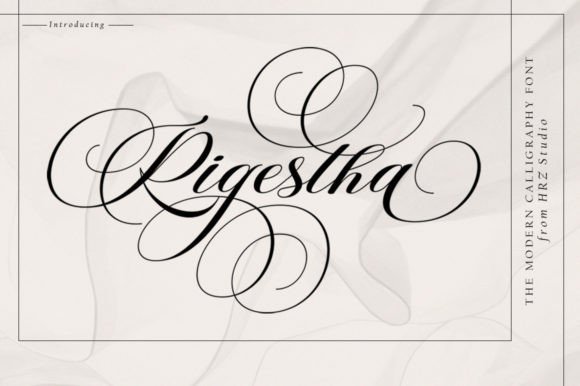
Bold and Beautiful: Introducing Rigestha, the Script Font That Will Transform Your Designs.
Dive into the world of enchanting typography with Rigestha, a calligraphy script font that spells elegance and sophistication. Inspired by the timeless beauty of copperplate script, Rigestha brings a modern twist to classic charm. Each letter dances across the page with smooth, clean lines, exuding a captivating femininity and sensuality. Its effortless readability, enhanced by intricate letter connections, makes it a joy to behold.
Rigestha Font: Where Art Meets Functionality.
Unleash your creativity with Rigestha's versatility. Whether you're crafting elegant invitations, designing captivating logos, or adding a touch of luxury to your fashion and beauty projects, Rigestha seamlessly adapts to your vision. Its timeless style shines in formal settings, adding a touch of sophistication to menus, labels, and stationery. Embrace the allure of Rigestha and watch your designs blossom.
A Symphony of Styles: Rigestha's Endless Possibilities.
Rigestha's charm extends beyond its formal elegance. Its versatility allows it to effortlessly transition into the world of novels, magazines, and books, bringing a touch of whimsy and intrigue to your stories. Create eye-catching greeting cards and wedding invitations that reflect the uniqueness of your special day. With Rigestha, every word carries a story, every design tells a tale.
Rigestha: The Key to Unlocking Your Design Dreams.
Rigestha is more than just a font; it's an artistic expression waiting to be unleashed. Its PUA encoding opens up a world of possibilities, allowing you to effortlessly access stunning glyphs and ligatures. With Rigestha, your designs will radiate with a touch of magic, leaving a lasting impression on your audience. Embrace the power of Rigestha and unlock the full potential of your creative vision.
Embark on a Typographic Adventure with Rigestha.
Don't settle for ordinary fonts. Choose Rigestha, the script font that captivates and inspires. Its enchanting beauty will transform your designs, adding a touch of timeless elegance and modern flair. Let Rigestha be your muse, guiding you towards design excellence. Experience the magic of Rigestha today and witness the transformation of your creative endeavors.